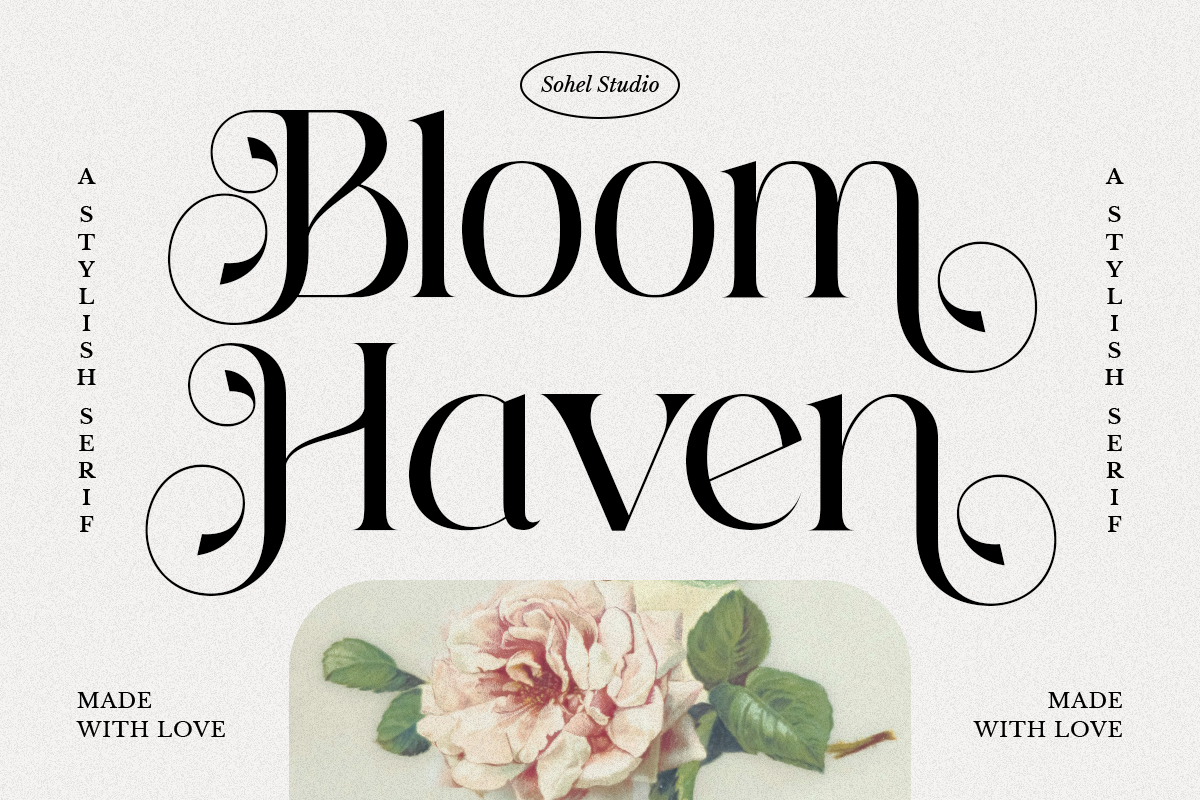
Bloom Haven - Beauty Branding Font Free Download is an elegant and graceful typeface designed specifically for beauty, wellness, and lifestyle branding. Please note: you must purchase this font for commercial use, but you can test it through a free download. With its soft curves, refined strokes, and luxurious feel, Bloom Haven is perfect for logos, skincare packaging, boutique signage, social media, and editorial design.
This font radiates sophistication and calm, making it an excellent choice for brands that want to convey trust, femininity, and elegance. Whether you're creating a high-end beauty label or a chic Instagram template, Bloom Haven - Beauty Branding Font Free Download provides a polished, professional look. It works flawlessly with design platforms like Adobe Illustrator, Photoshop, and Canva. Download it now for personal use and let your brand bloom with a font that speaks style, serenity, and sophistication.